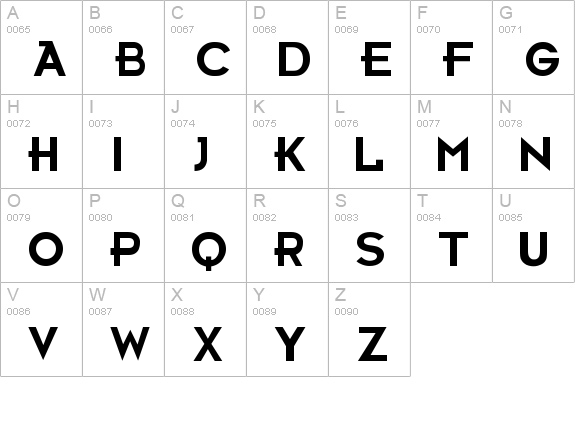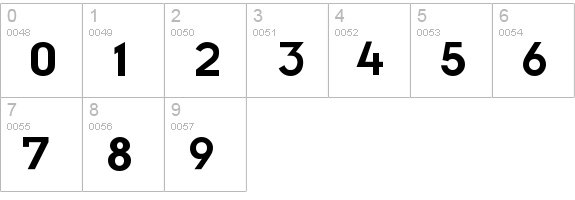
Futurama Bold Font Font Details
Futurama Bold Font is a strong, high-contrast variant in the Futurama typeface family \xE2\x80\x94 well suited to headlines, attention-grabbing titles, and strong calls-to-action.
Futurama Bold Font is a sleek and modern typeface that exudes confidence and sophistication. With its bold and futuristic design, this font is perfect for creating eye-catching headlines, posters, and branding materials. The clean lines and sharp angles give it a contemporary edge that will make your designs stand out. Best of all, Futurama Bold Font is available for free download at FontsMarket.com. Whether you're a designer looking to add a touch of modernity to your projects or a business owner seeking a fresh new look for your brand, this font is sure to impress. Don't miss out on the opportunity to elevate your designs with this stylish and versatile typeface - download Futurama Bold Font today!